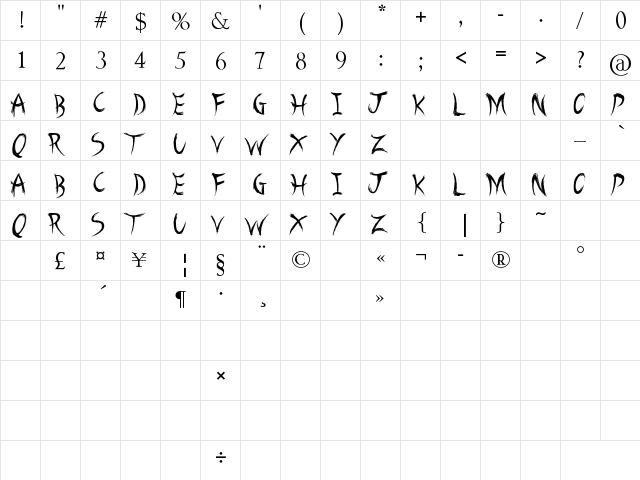
A Brush No Regular
Design Context for A Brush No Typeface
A Brush No brings a calligraphic fluidity to the page — its connecting strokes and expressive curves give it an unmistakably human quality.
Font Pairing: Combine A Brush No with a simple geometric sans for maximum contrast — the tension between flowing curves and clean structure is a classic typographic pairing.
Pro Tip: Use A Brush No for short runs of text — names, titles, or taglines. Extended body copy in script faces tires the eye quickly.